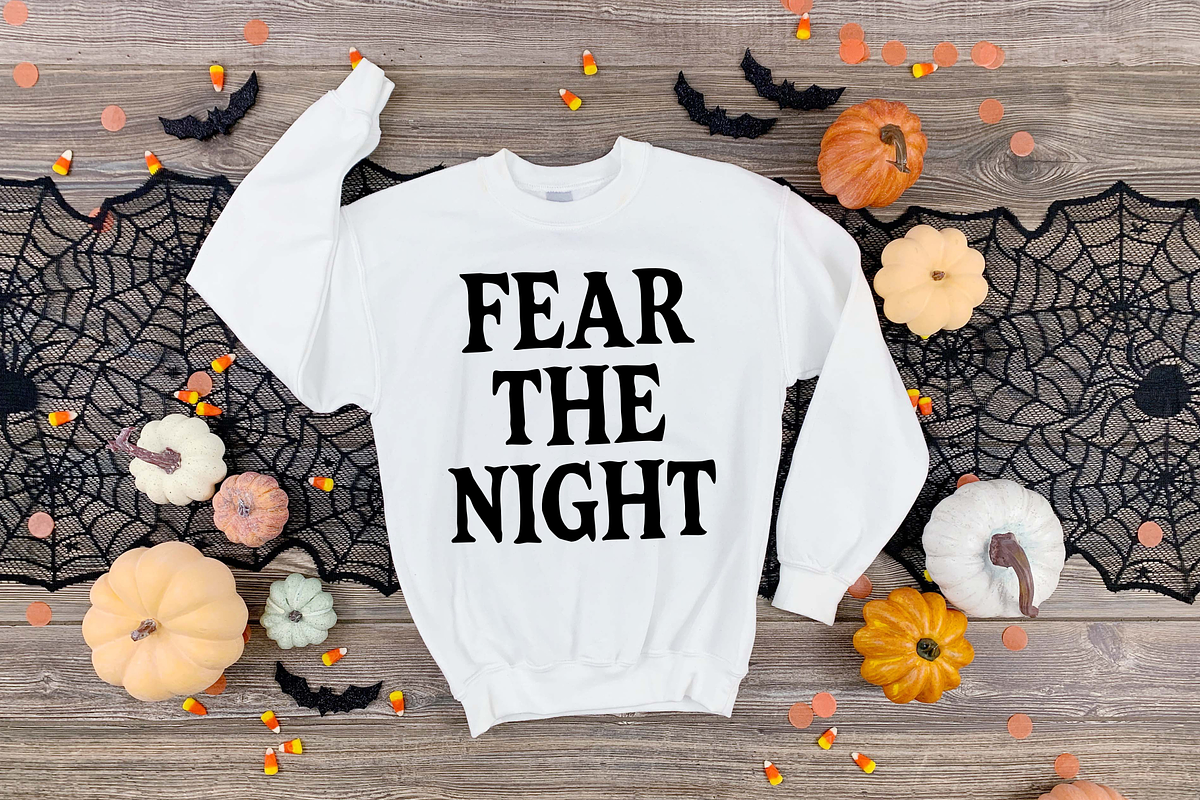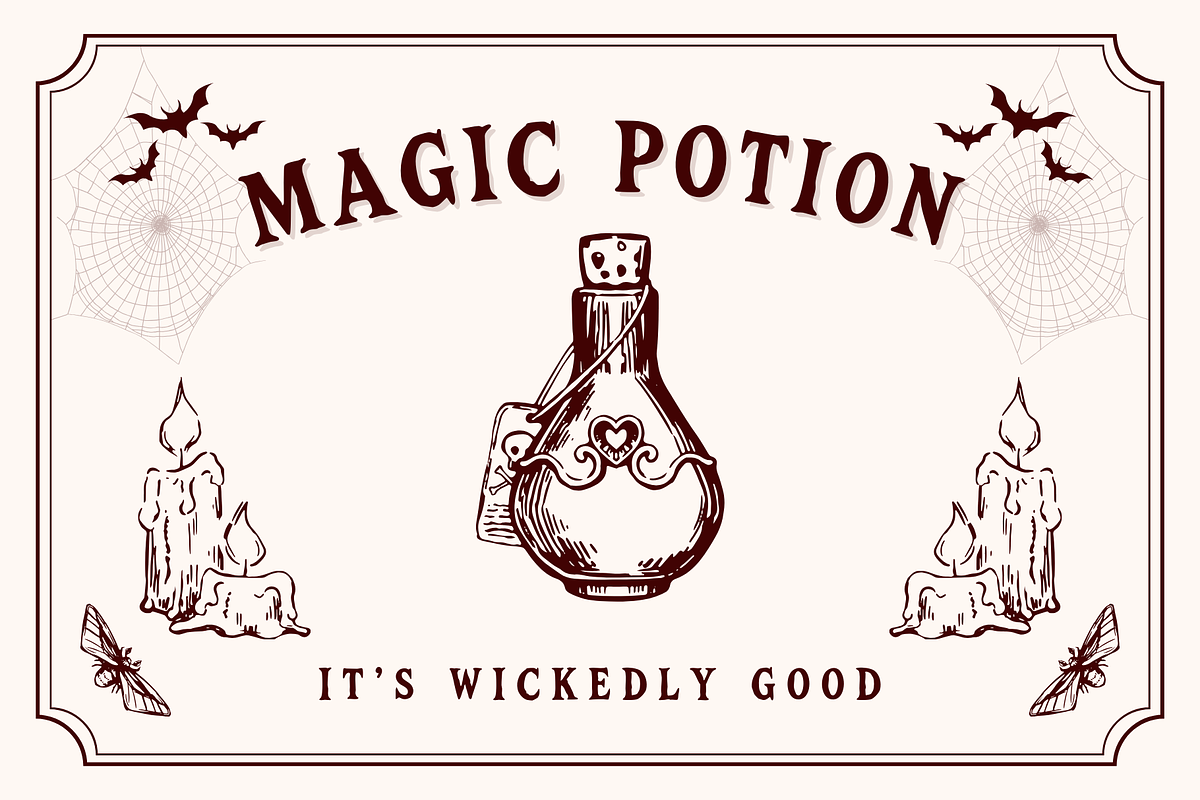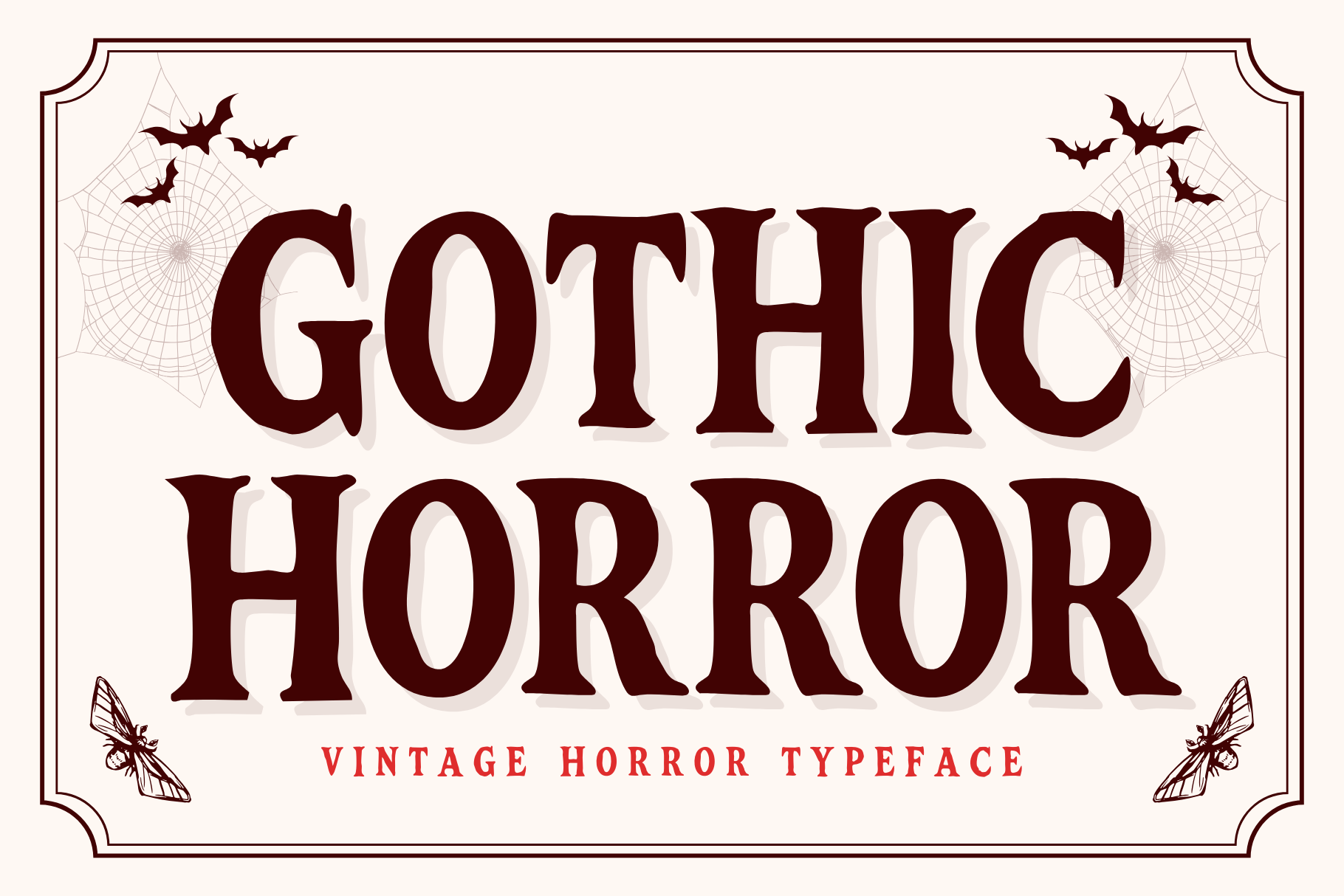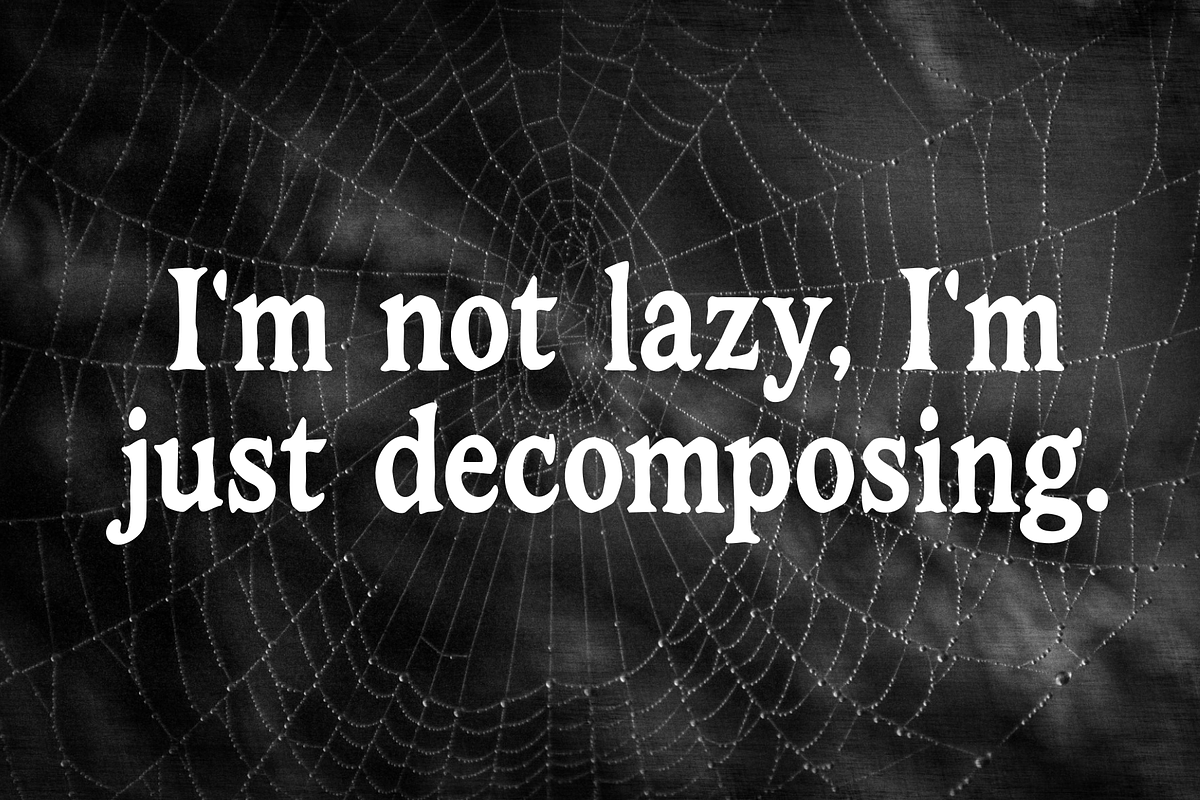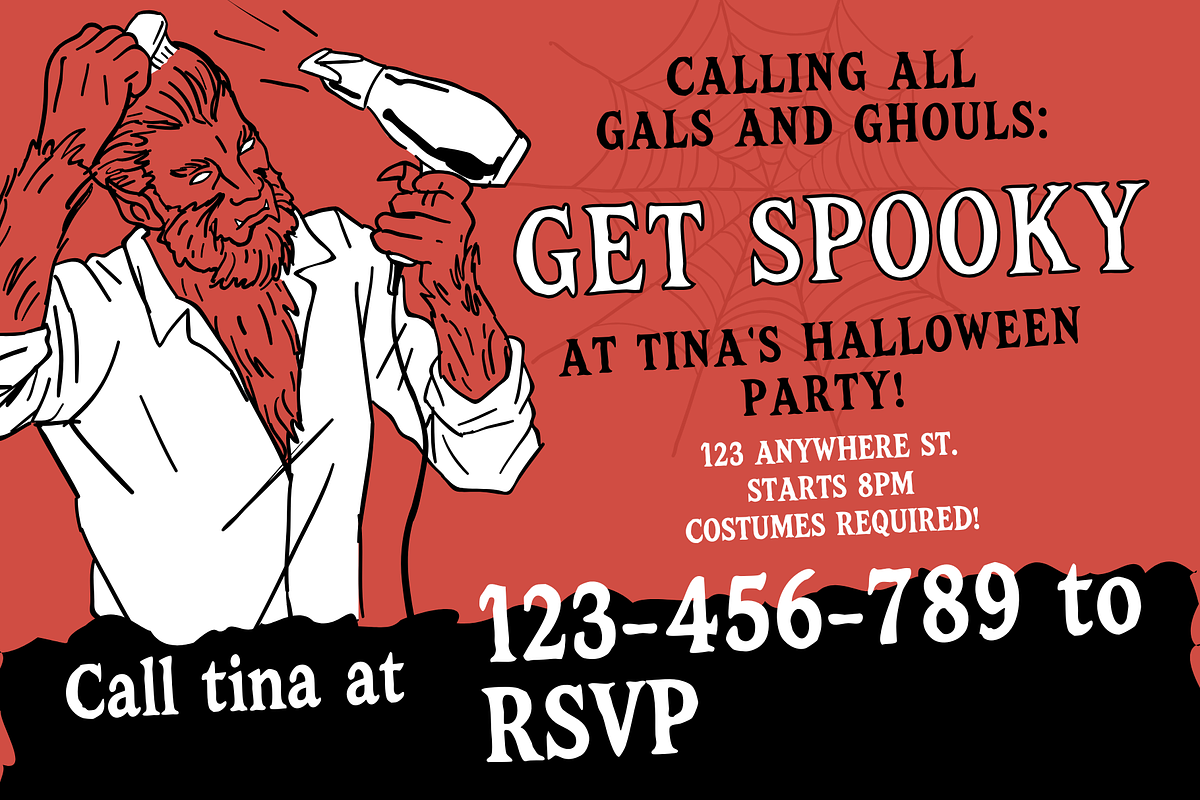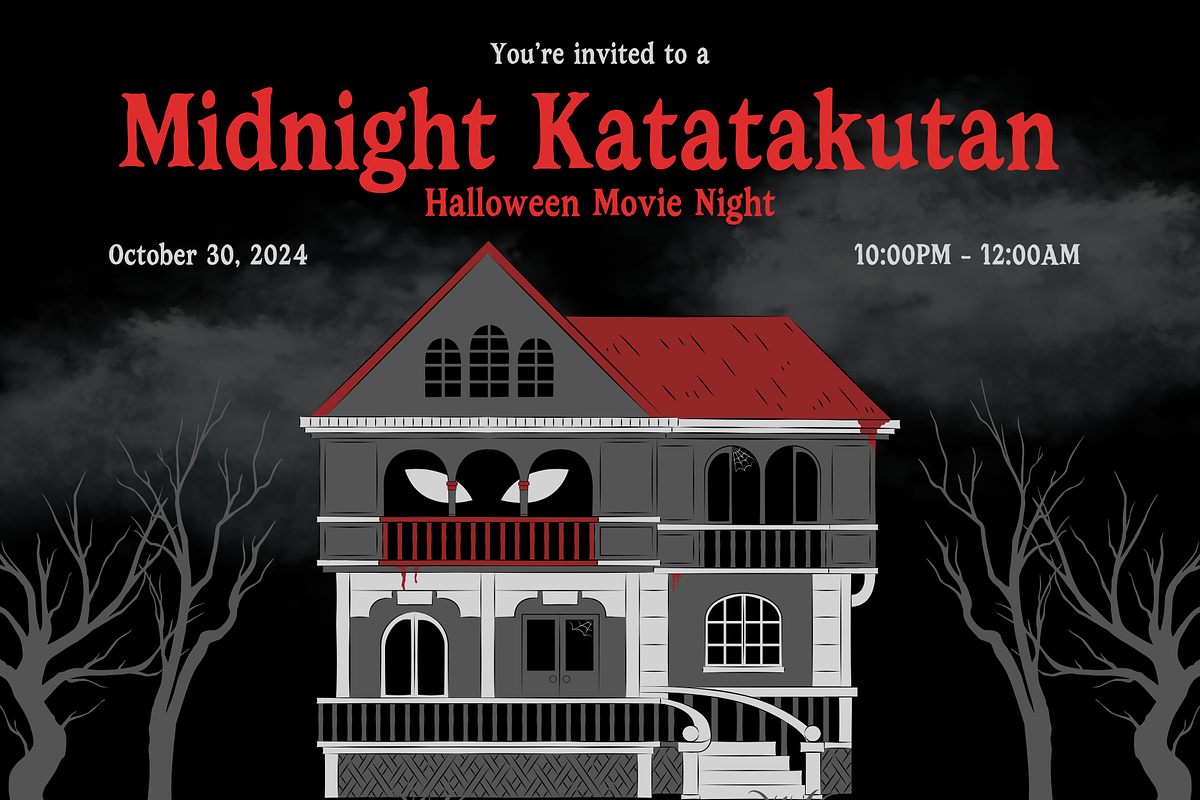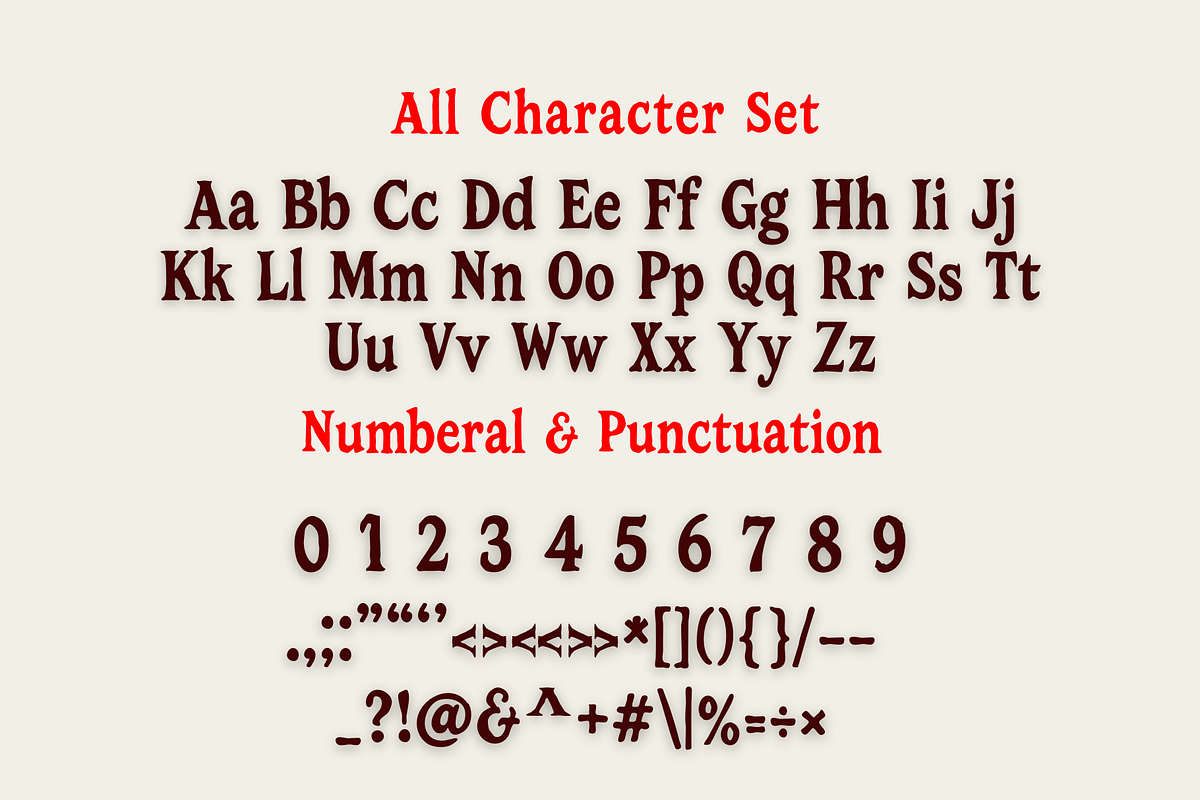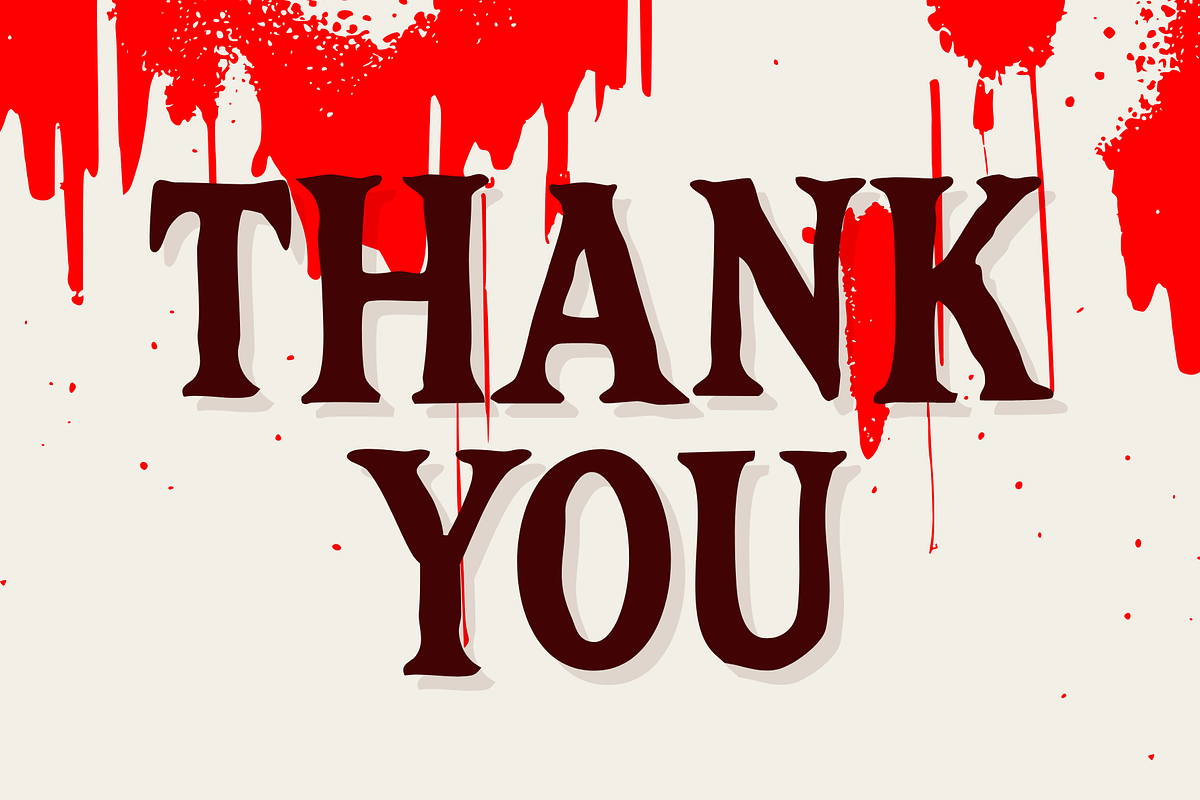
Gothic Horror is a distressed font
Gothic Horror is a distressed, hand-drawn typeface inspired by vintage horror films and classic gothic tales. With jagged ink edges and eerie letterforms, this font brings a chilling and dramatic presence to any design.
Perfect for horror movie titles, Halloween posters, book covers, and vintage-themed branding.